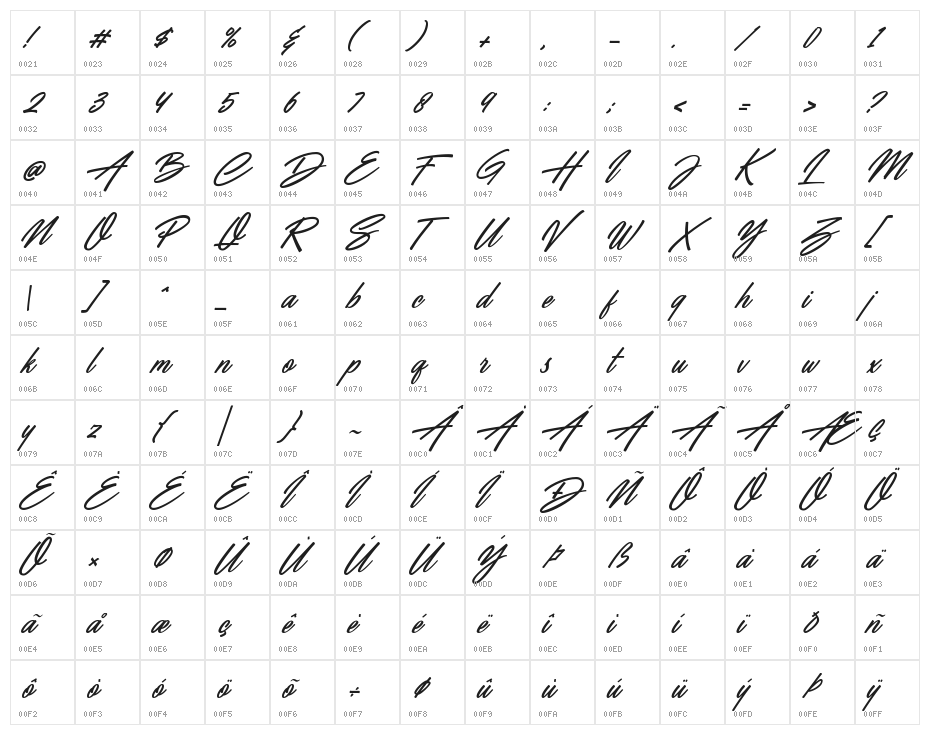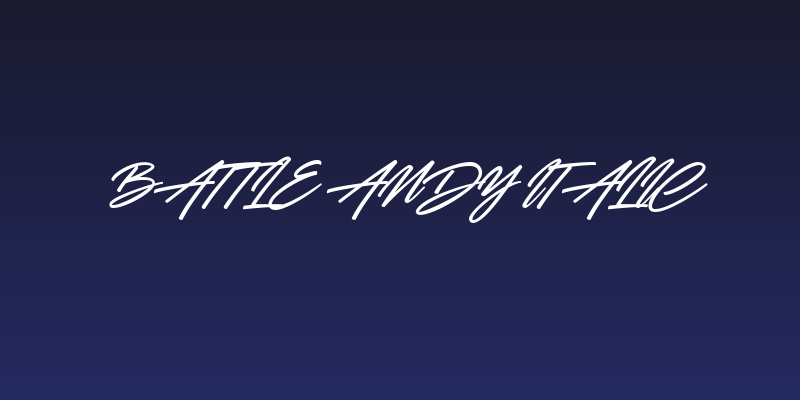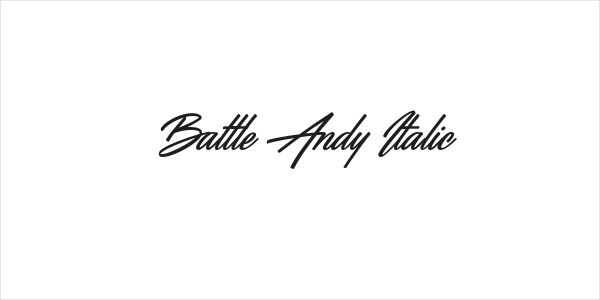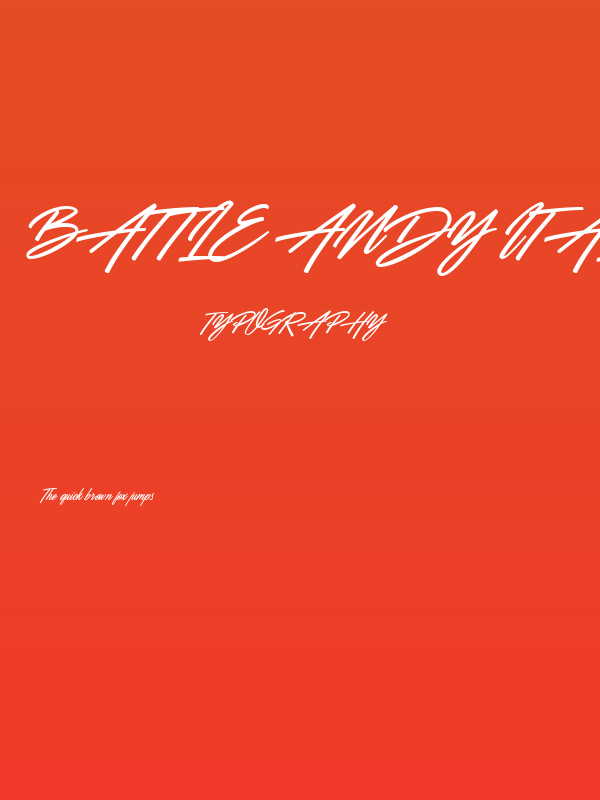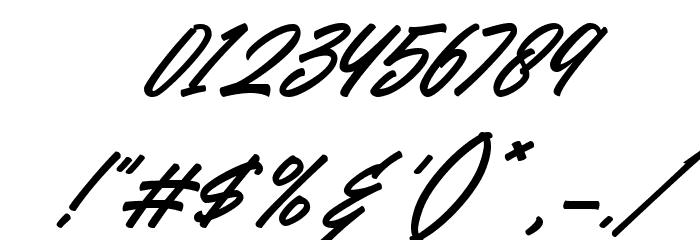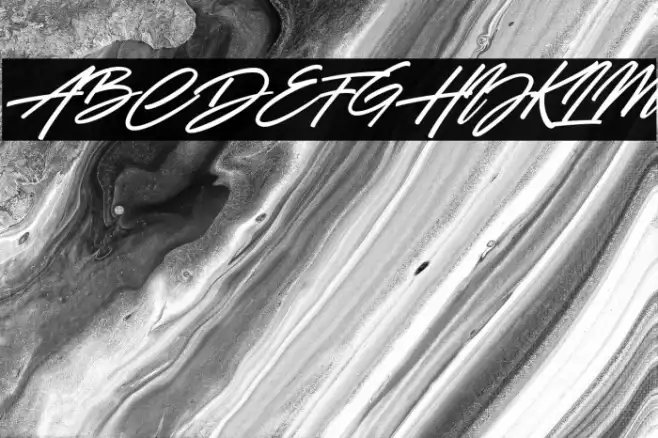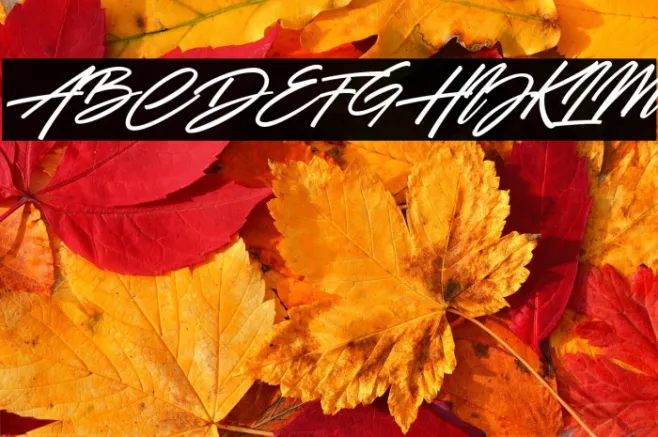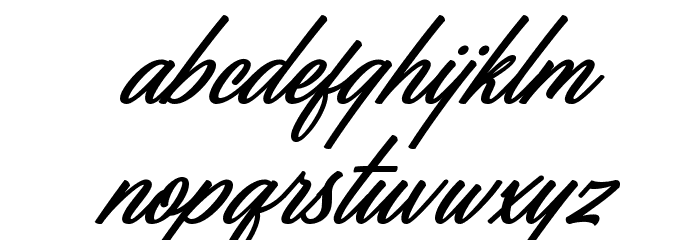
Battle Andy Italic Font
Battle Andy Italic Description
This font exudes a dynamic and energetic style with its italicized, handwritten appearance. The letters are fluid and connected, giving a sense of motion and elegance. The uppercase characters are bold and expressive, while the lowercase letters maintain a consistent flow. The numerals are clear and well-integrated with the overall design. Special characters are stylishly incorporated, enhancing the font's versatility. The strokes are smooth and slightly varied in thickness, adding to the handwritten feel. This font is ideal for projects that require a personal touch or a sense of creativity.
| Use Case | Logos, Headlines, Creative projects |
| Proposed Projects | Ideal for invitations, greeting cards, branding, and creative projects requiring a personal touch. |